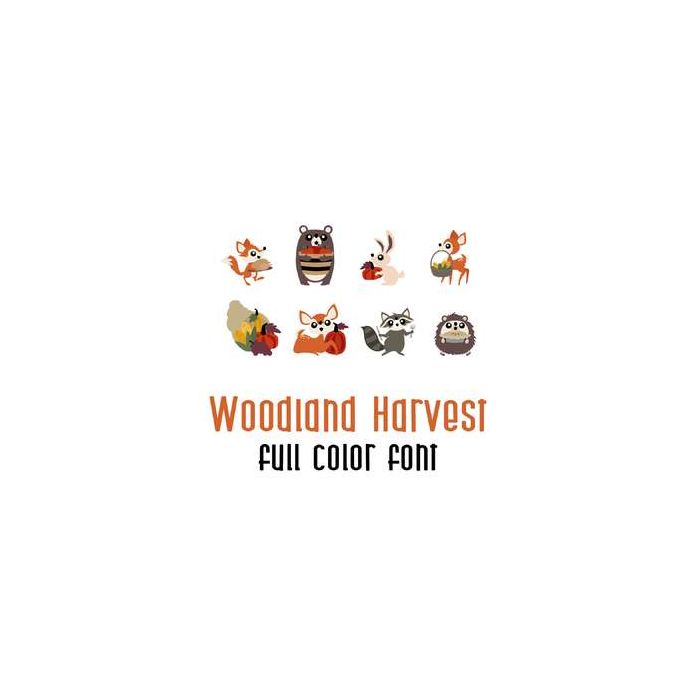
This adorable full color doodlebat font features beautiful Woodland animals ready for a feast. Perfect for cards, crafts, gifts, decor, scrap book pages, planner stickers and more!